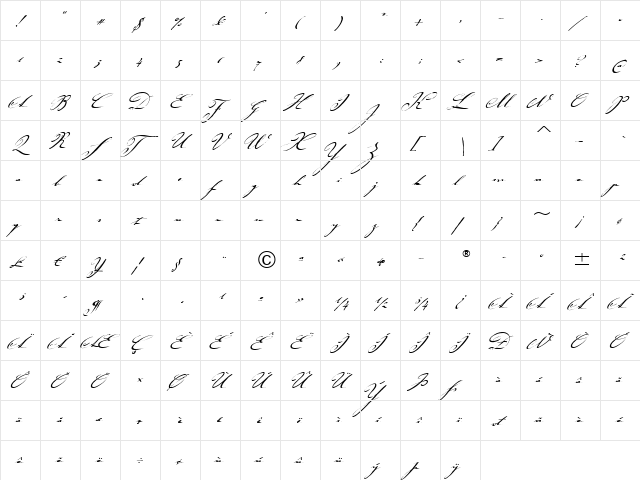
JohannSparklingITC Regular
Design Context for JohannSparklingITC Typeface
JohannSparklingITC is a composed and adaptable typeface that performs quietly and consistently across a wide range of design contexts.